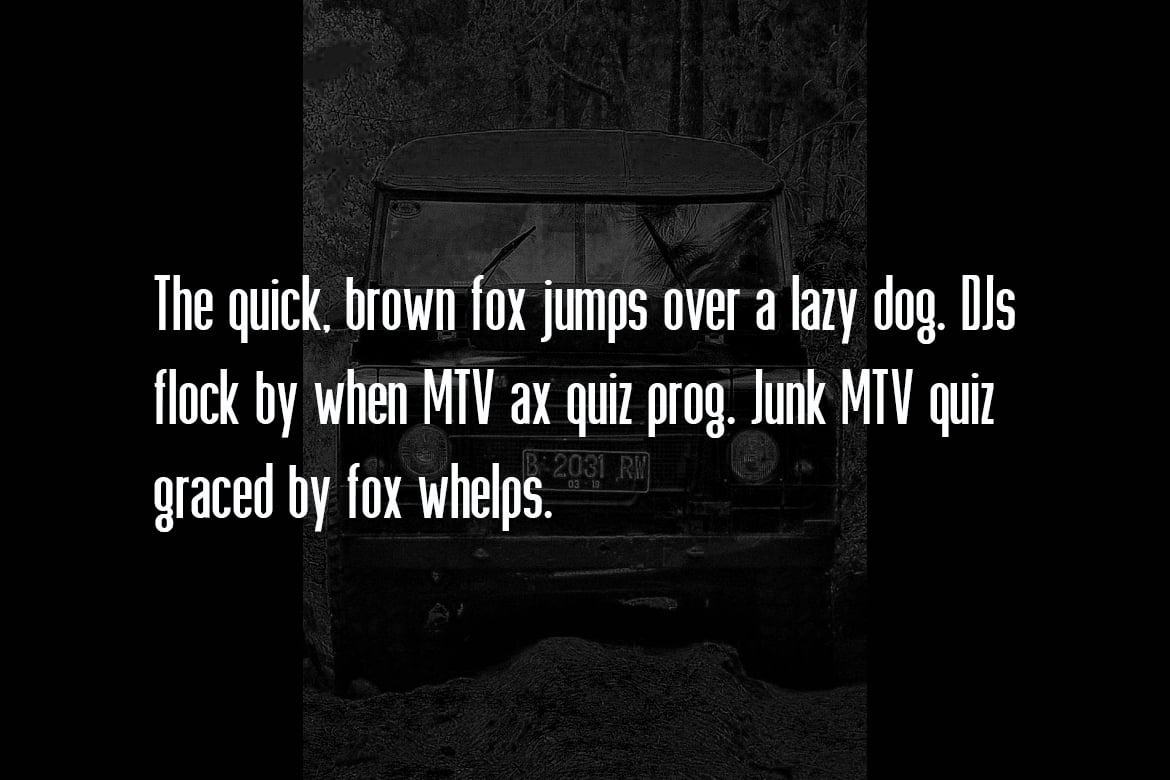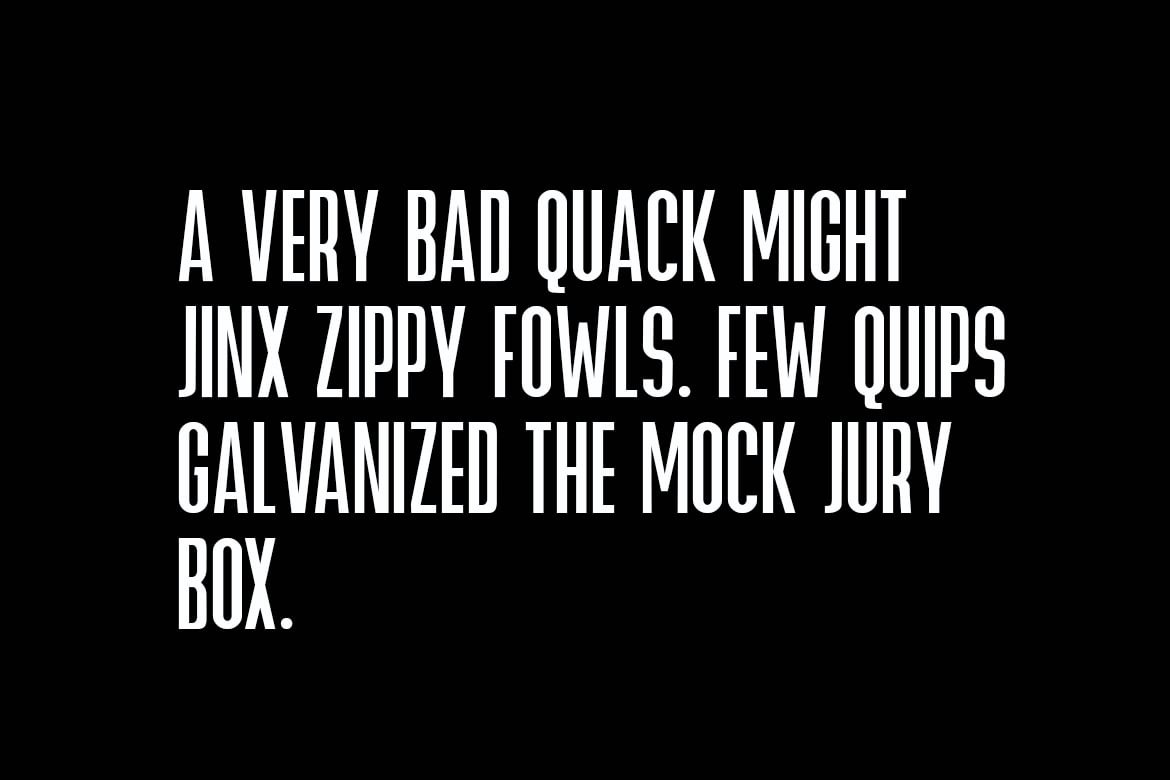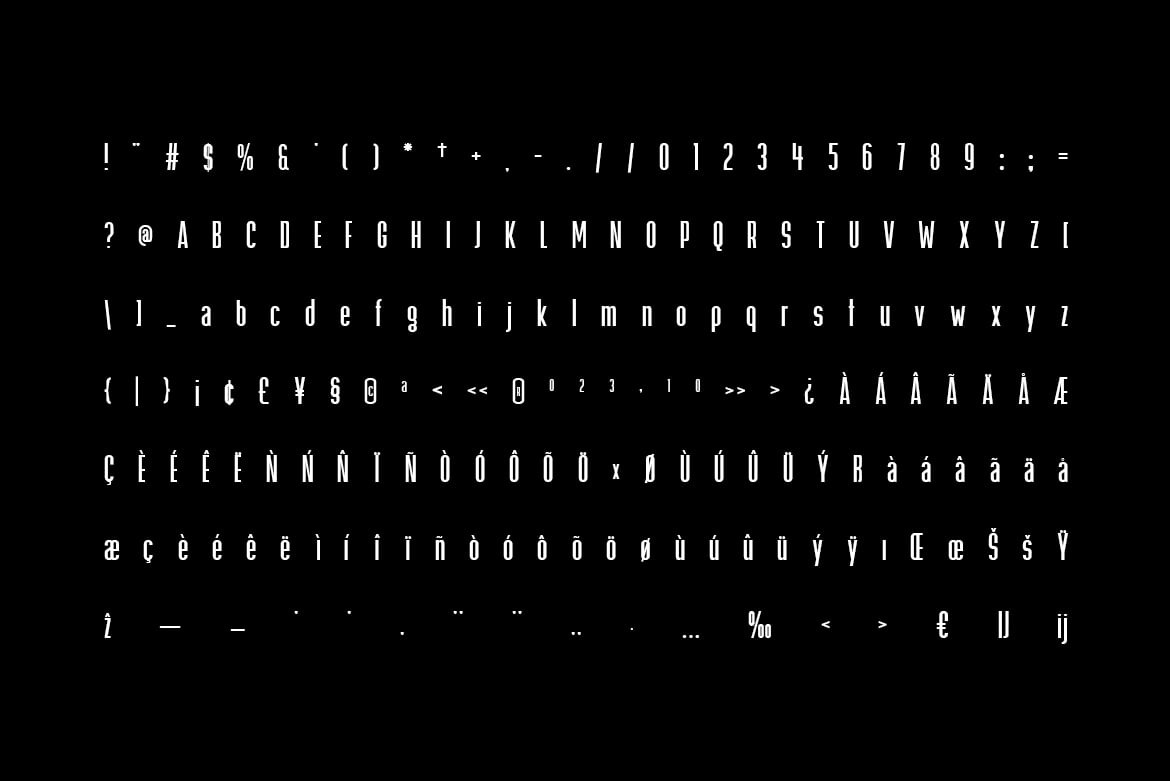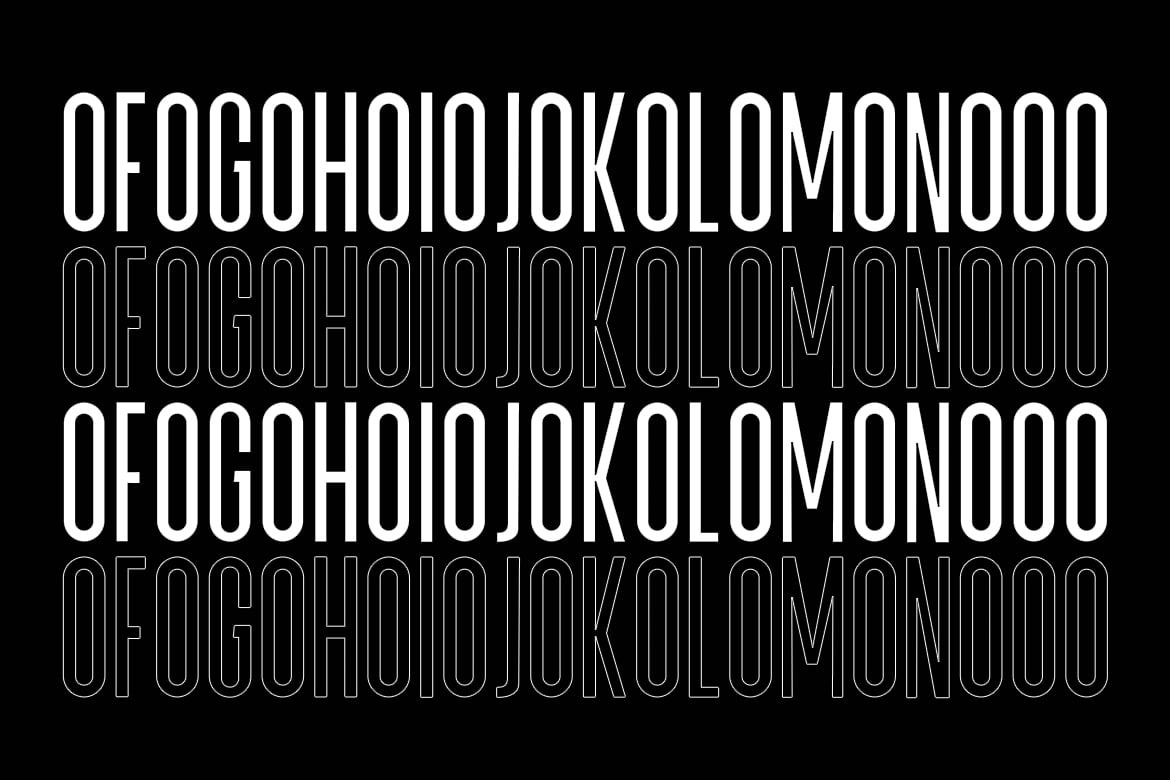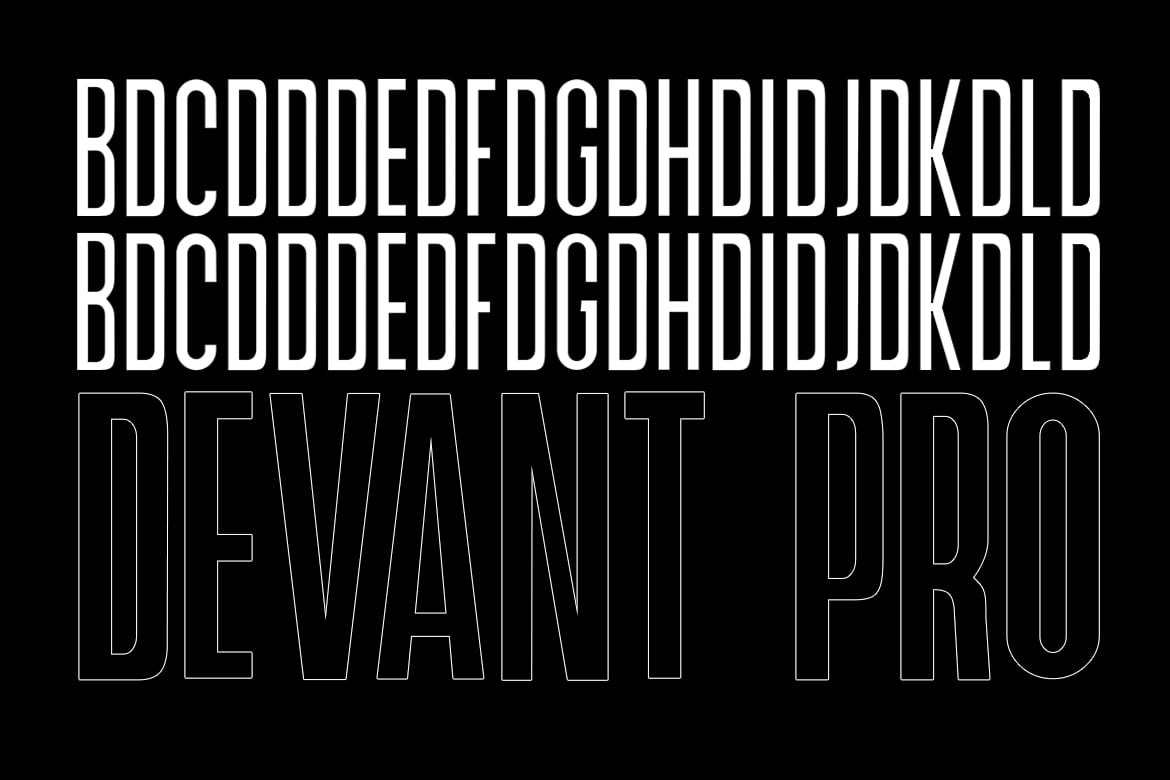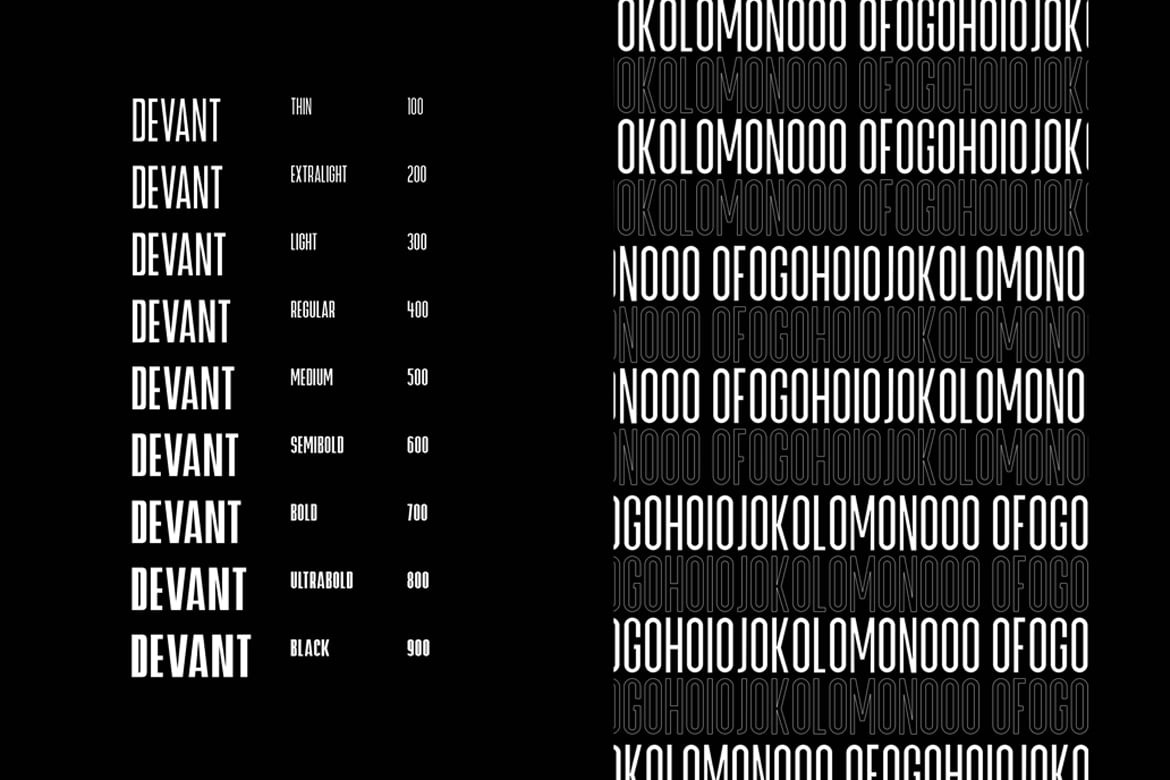
Devant Pro is a modern sans-serif typeface perfect for film posters, headlines, logos, and large banners. With nine font weights and matching italics, it offers versatility for both classic and decorative typography. It supports multiple languages, includes alternate characters, and comes with free updates. Designed and crafted by Webhance Studio, it’s available in OTF, TTF, and web font formats.